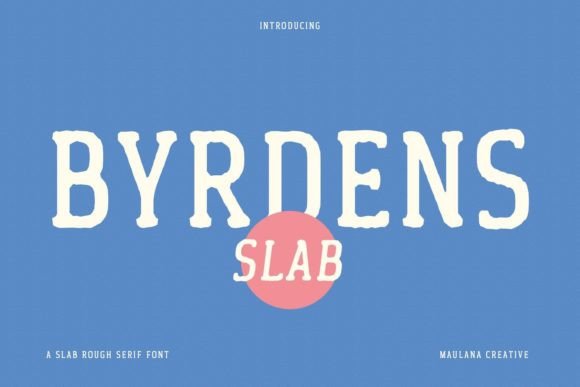
Introducing Byrdens Font: The Ultimate Retro Slab Serif for Creative Projects
Are you on the hunt for a font that adds a touch of nostalgia and playfulness to your designs? Look no further than Byrdens Font, a retro slab serif font that’s perfect for a wide range of creative projects. With its regular rounded stroke and fun character, Byrdens is sure to give your work an extra boost of creativity and visual appeal.
What Makes Byrdens Font So Special?
Byrdens Font is a unique and versatile typeface that’s designed to help you create stunning work. Its retro slab serif style gives it a distinctive look that’s reminiscent of classic designs from the past, while its rounded stroke adds a touch of friendliness and approachability. Whether you’re working on a logo design, social media graphics, movie titles, book titles, or any other type of project, Byrdens Font is sure to make a lasting impression.
One of the things that sets Byrdens Font apart is its incredible versatility. This font is perfect for a wide range of projects, including:
- Logo Design: Byrdens Font is ideal for creating logos that need to make a bold statement. Its retro style and fun character make it perfect for brands that want to stand out from the crowd.
- Social Media: Whether you’re creating graphics for Instagram, Facebook, Twitter, or any other social media platform, Byrdens Font is a great choice. Its clean lines and rounded stroke make it easy to read, even on small screens.
- Movie Titles: Add a touch of Hollywood glamour to your movie titles with Byrdens Font. Its slab serif style gives it a classic, cinematic look that’s sure to turn heads.
- Book Titles: Byrdens Font is also perfect for book titles, whether you’re working on a fiction novel, non-fiction book, or any other type of publication. Its elegant style and fun character make it a great choice for book covers and interior design.
- Short Text and Long Text: Byrdens Font is designed to be legible and easy to read, whether you’re working with short text or long text. Its clean lines and simple style make it perfect for body copy, headings, and more.
Pairing Byrdens Font with Script Typefaces
One of the best things about Byrdens Font is how well it pairs with script typefaces. The contrast between the clean, slab serif lines of Byrdens and the flowing curves of a script font creates a beautiful visual tension that’s sure to add interest to your designs. Use Byrdens Font as your primary typeface and pair it with a script font for your secondary text to create stunning, high-contrast designs.
Tips for Getting the Most Out of Byrdens Font